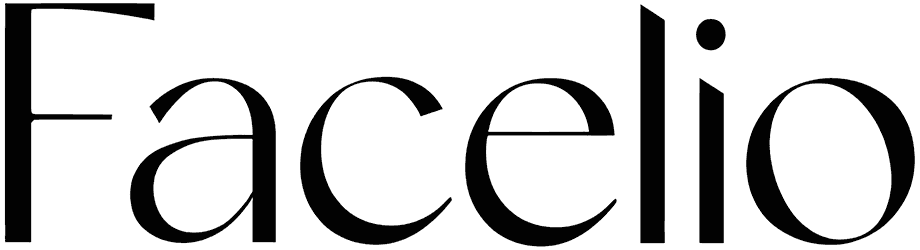
Facelio Font
Letting you take advantage of the exquisiteness of modern styles, Facelio attracts tons of attention in today’s world. With such a luxury font in your personal collection, you’ll have the easiest job designing trendy logos for fancy restaurants, promoting fashion sales, or event management services.
Everything is designed so tastefully that you don’t need to think twice about adding this sans-serif font to your branding art. You just know it’s going to turn out perfect and distinct.